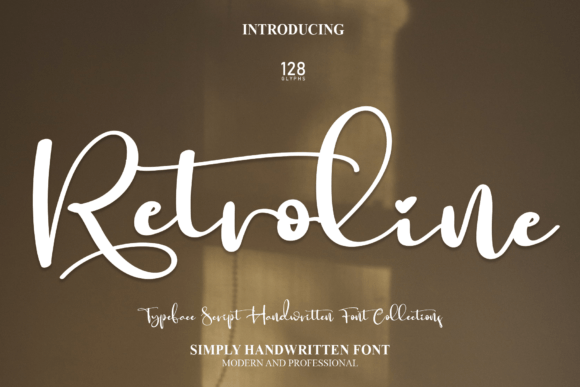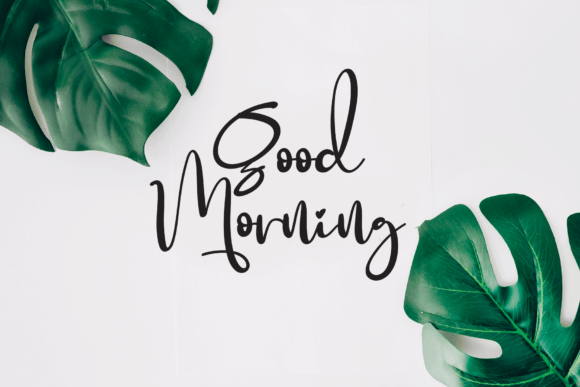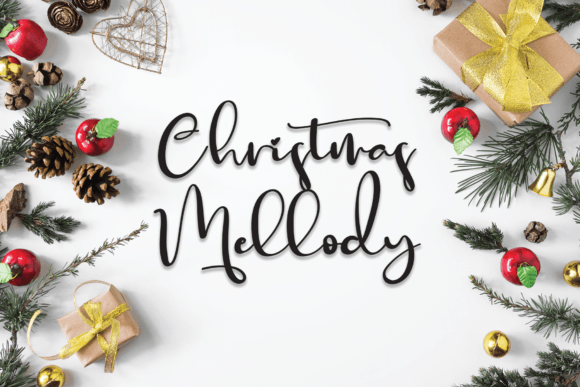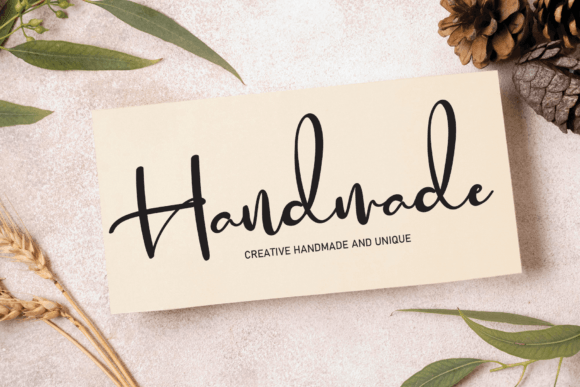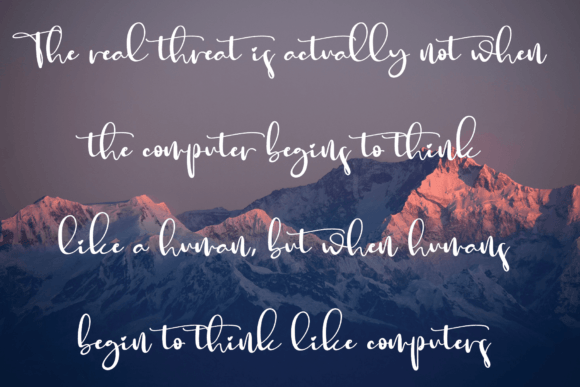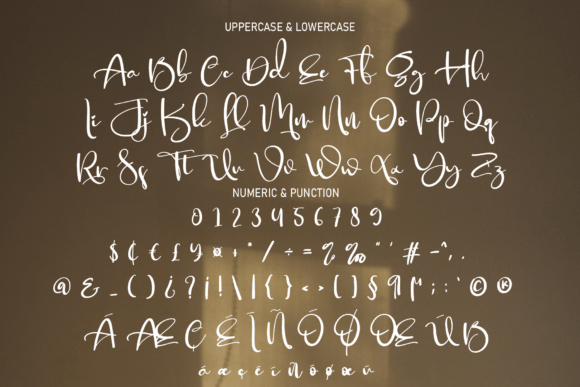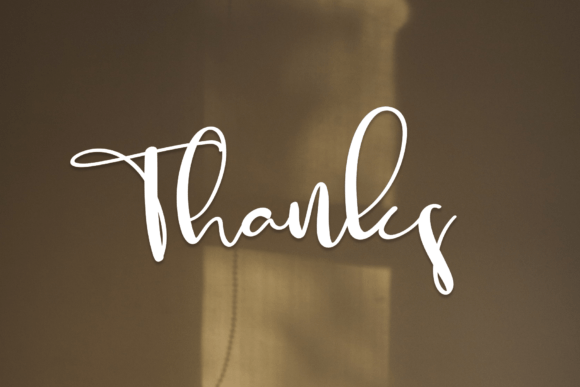
Retroline Font
About Retroline Font
Introducing Retroline, a sweet and cursive handwritten font crafted to bring a gentle and romantic touch to your diverse range of design projects. This font radiates a joyful and elegant vibe, making it a perfect fit for branding, logos, wedding materials, greeting cards, fashion, lookbooks, and marketing promotions. Retroline adds a fancy yet casual elegance to your designs, making them stand out with sophistication.
The cursive and handwritten style of Retroline imparts a sense of warmth and personal touch to your text. With gentle curves and flowing strokes, this font creates an elegant appearance that adapts seamlessly to various design applications.
Imagine using Retroline for wedding invitations, where its romantic and cursive font enhances the overall elegance and charm of the event. In branding or logos, this font adds a touch of sophistication, making your brand or business appear both fancy and approachable.
For fashion-related projects, lookbooks, or marketing promotions, Retroline’s elegant and casual style shines, making your designs stand out with a sense of grace. The versatility of this font allows it to fit into different contexts and design needs.
Whether you’re creating digital or print materials, Retroline is ready to be the sweet and cursive font that elevates the visual appeal of your projects. Its ability to strike a balance between fancy elegance and casual charm makes it a valuable asset for a variety of creative endeavors.
In conclusion, Retroline is more than just a font; it’s a design tool that invites you to infuse your projects with a sweet and romantic touch. Whether you’re working on branding, wedding invitations, or fashion-related designs, Retroline is prepared to be the cursive and elegant font that enhances the overall beauty of your creative work.